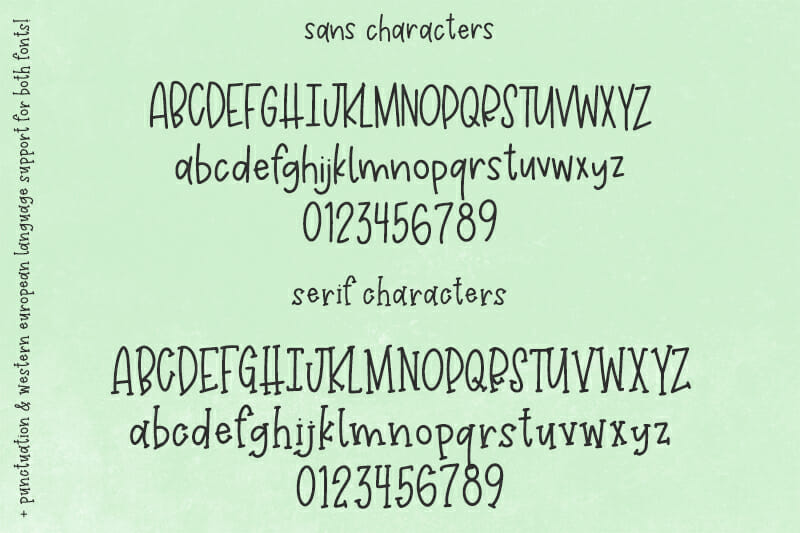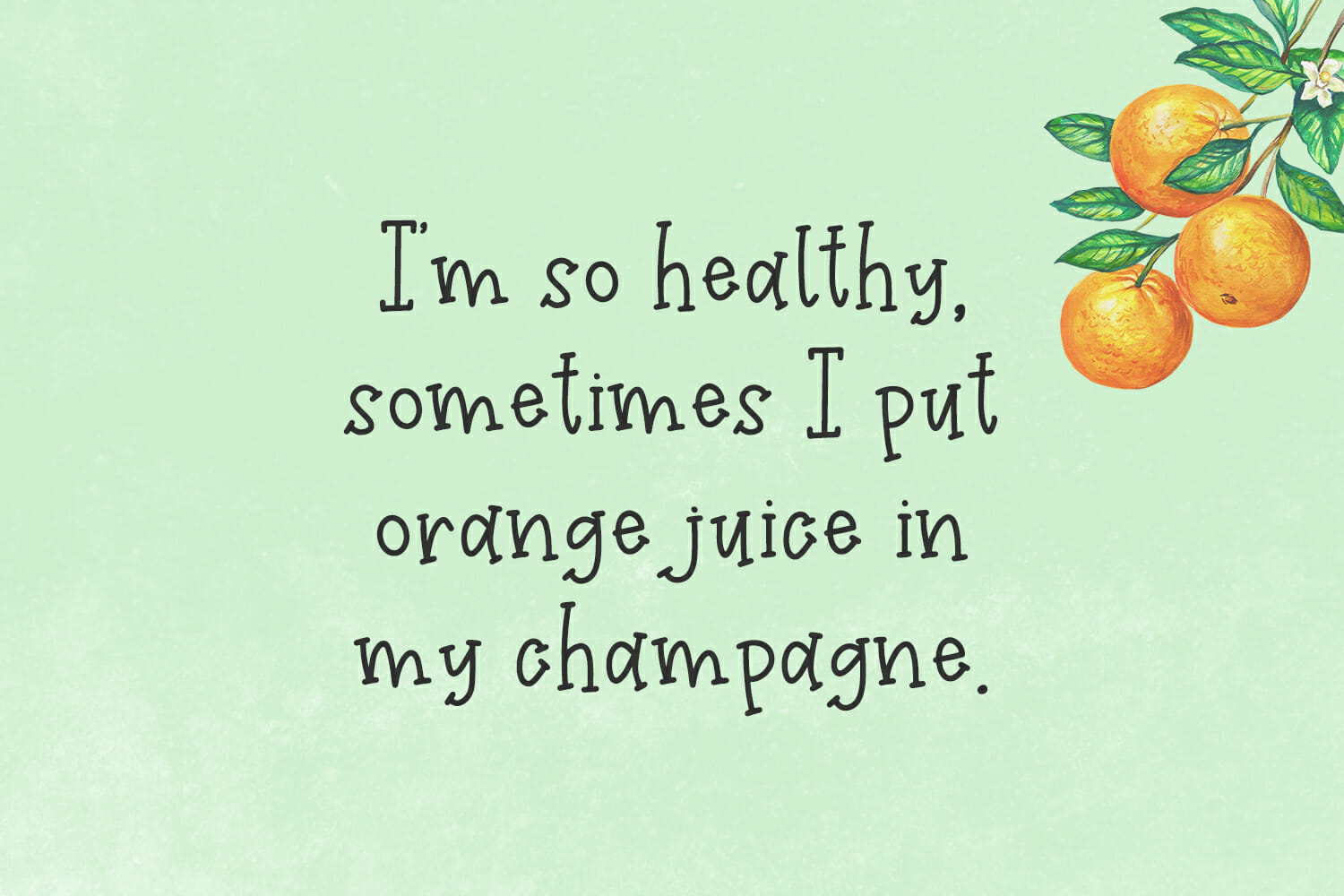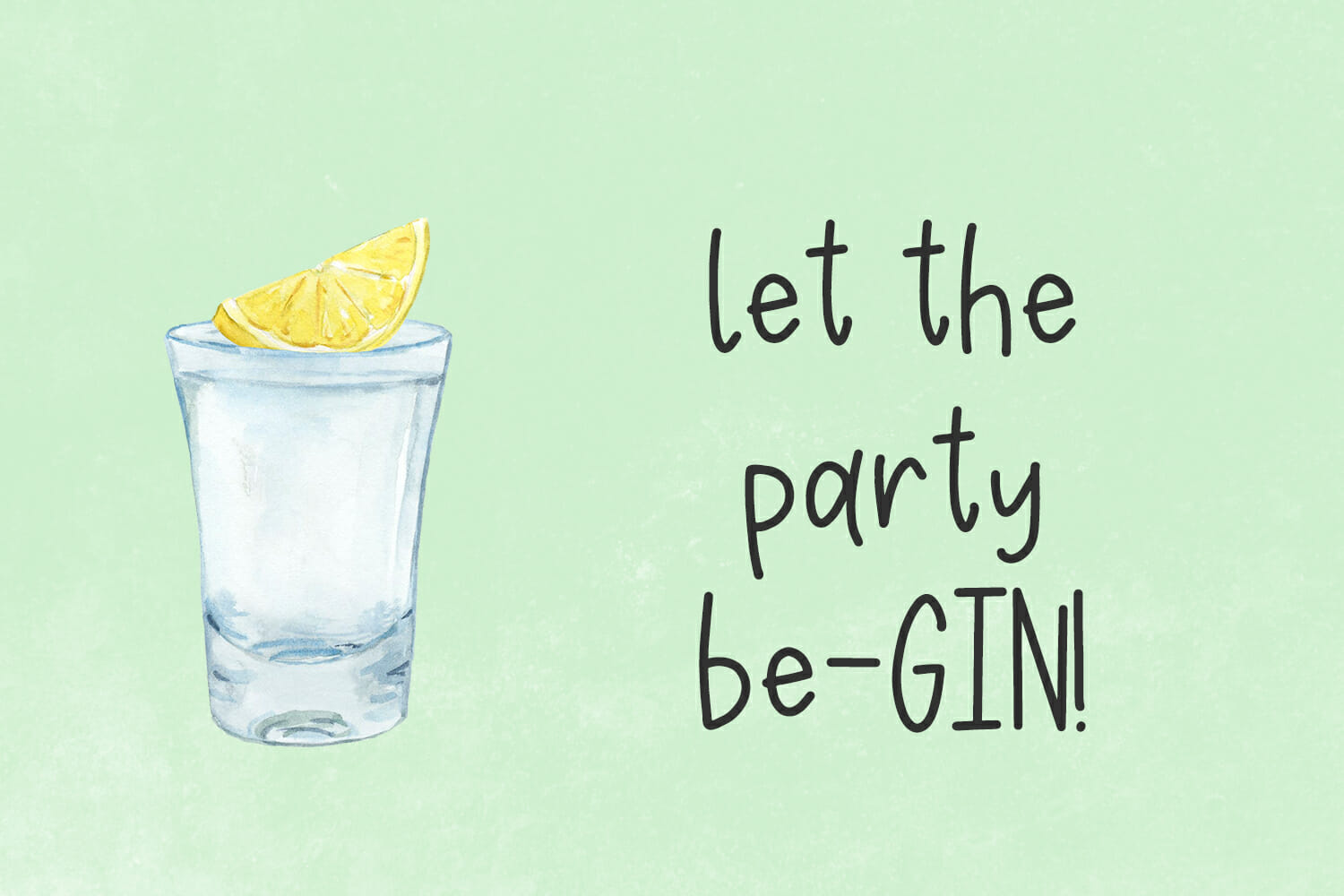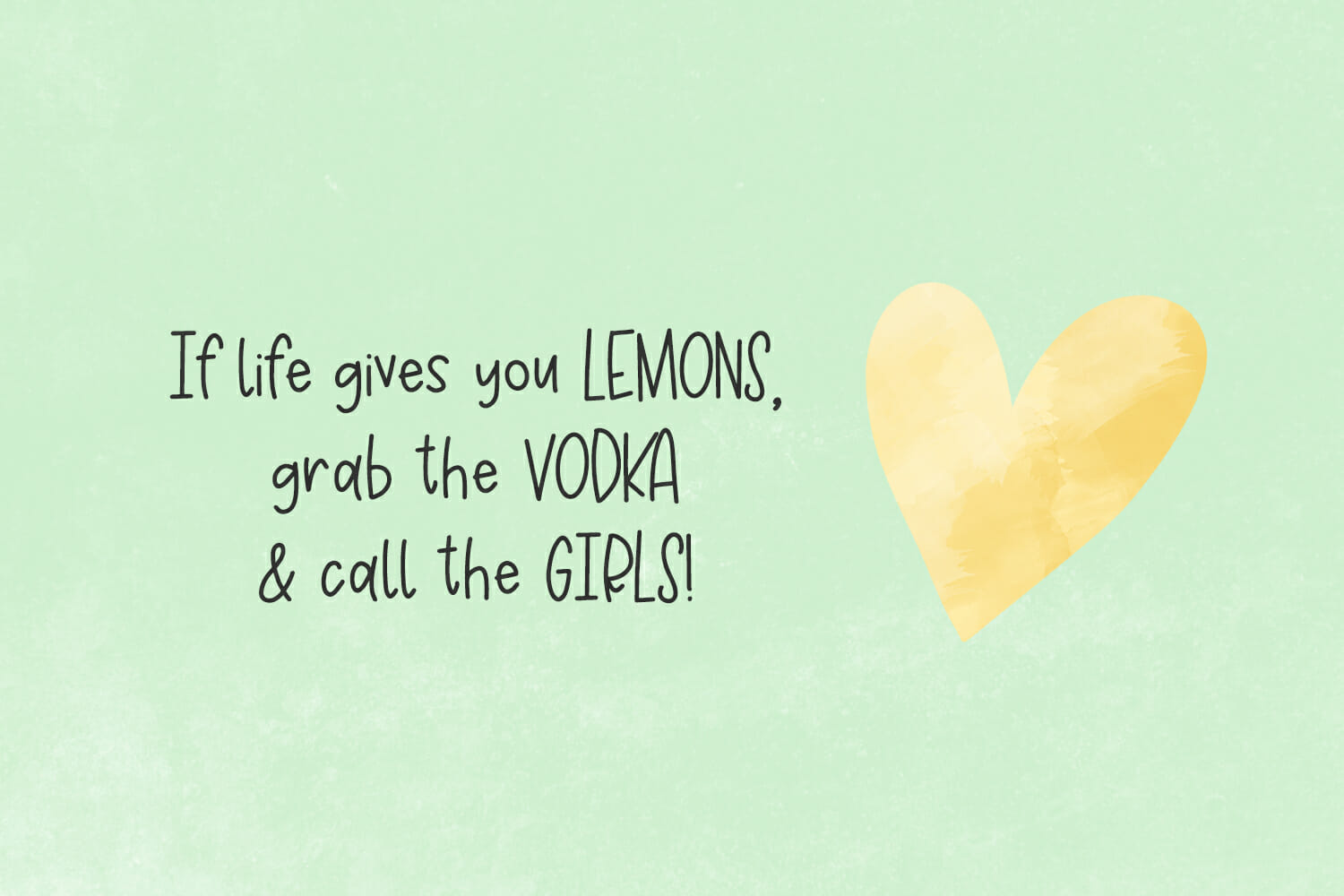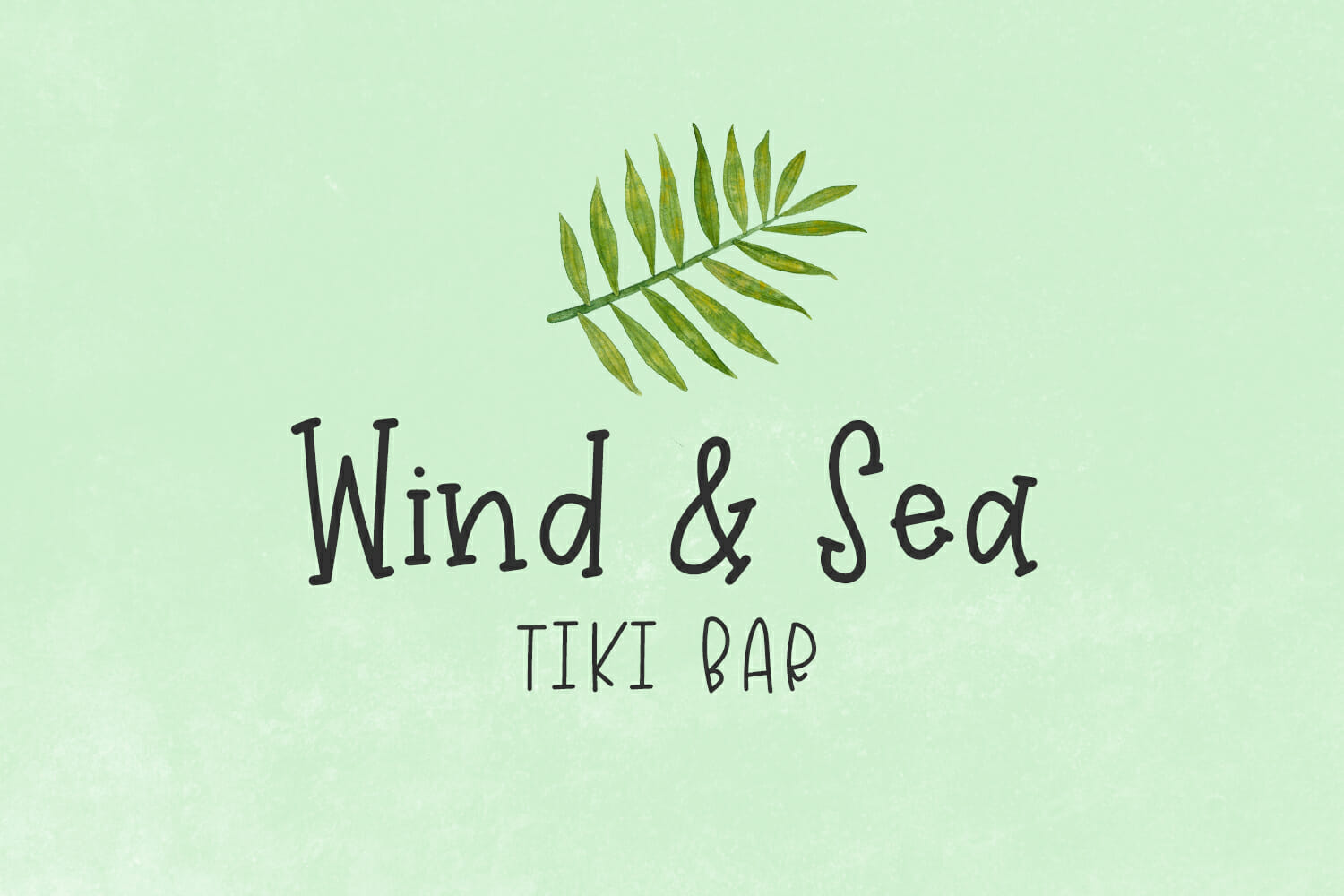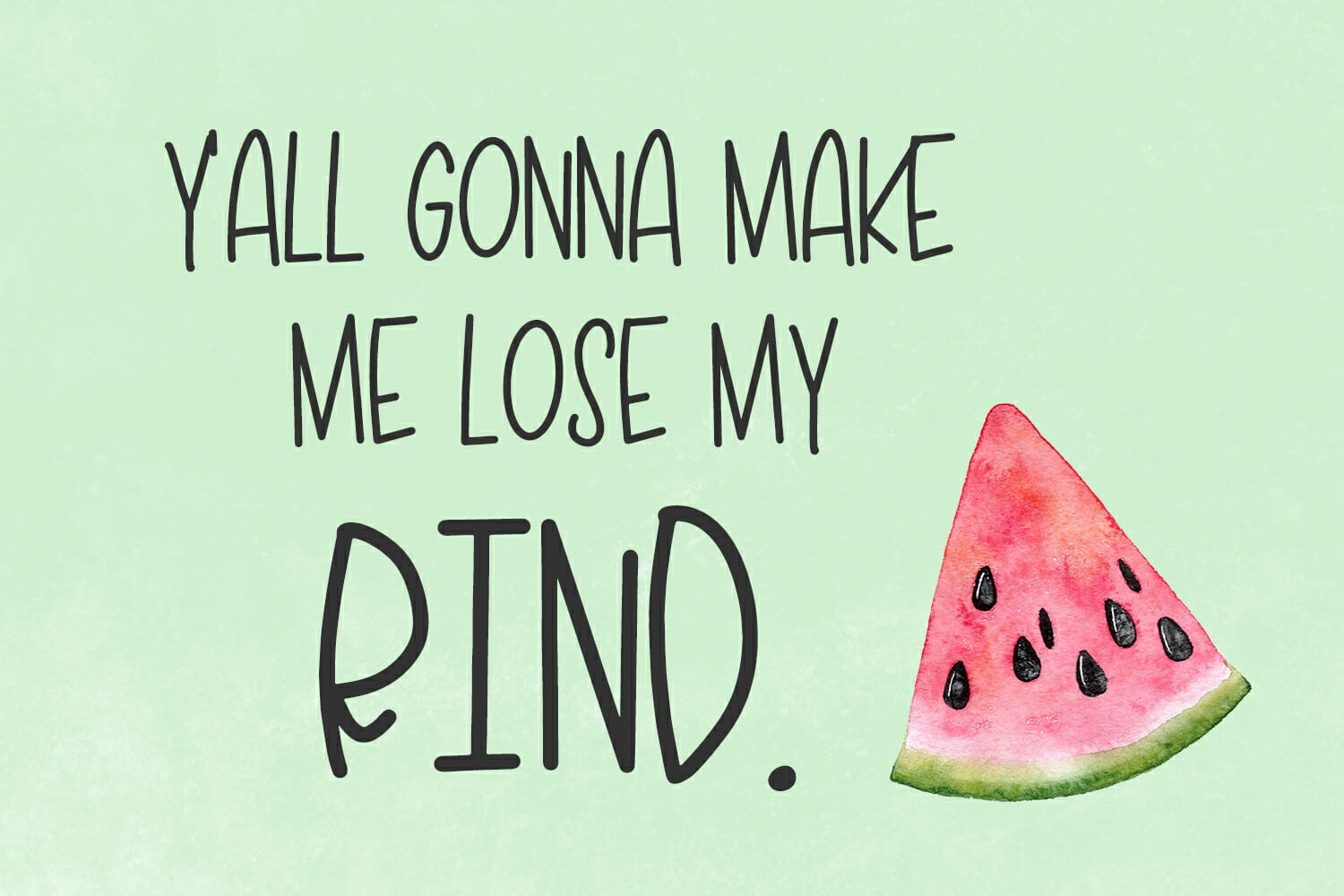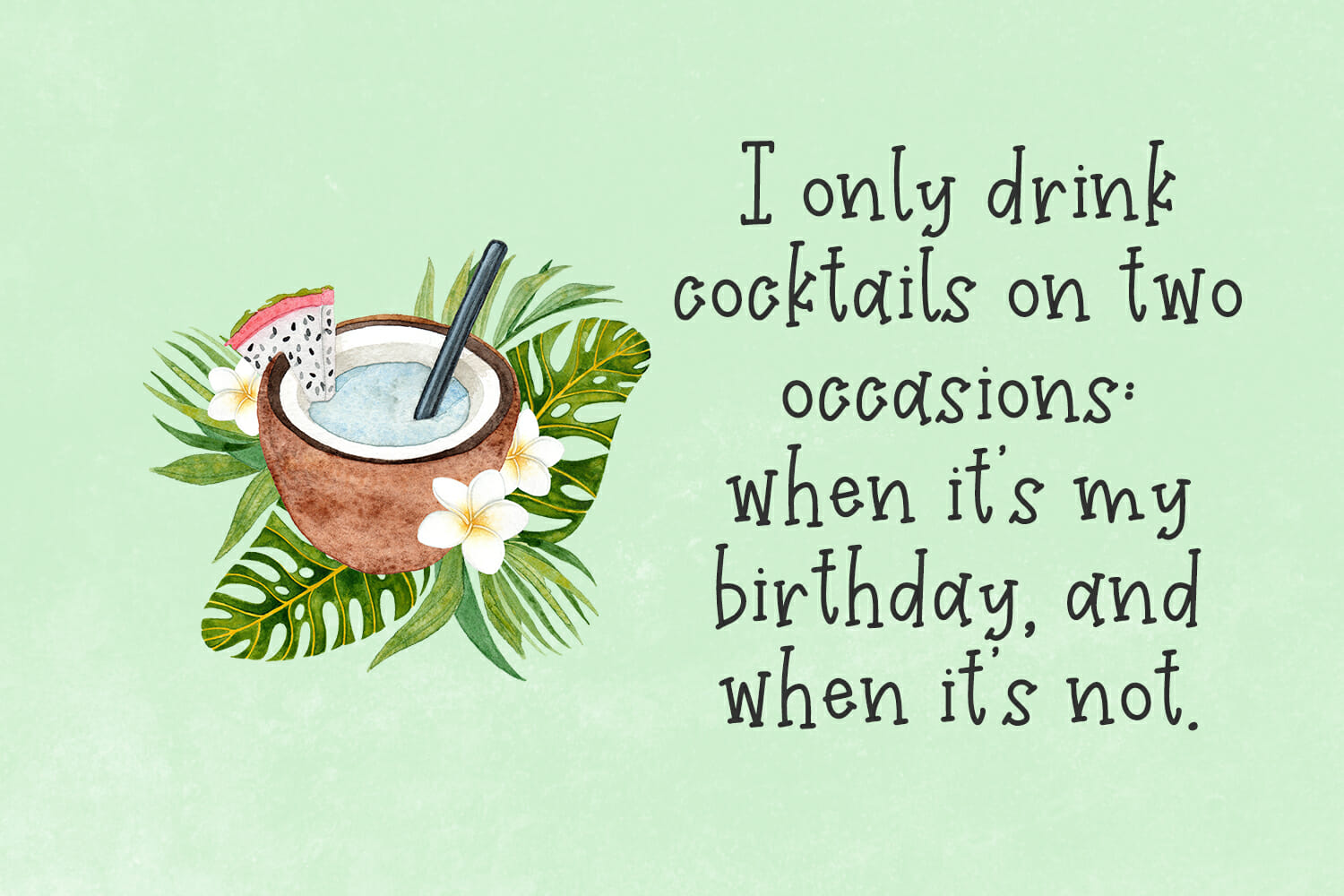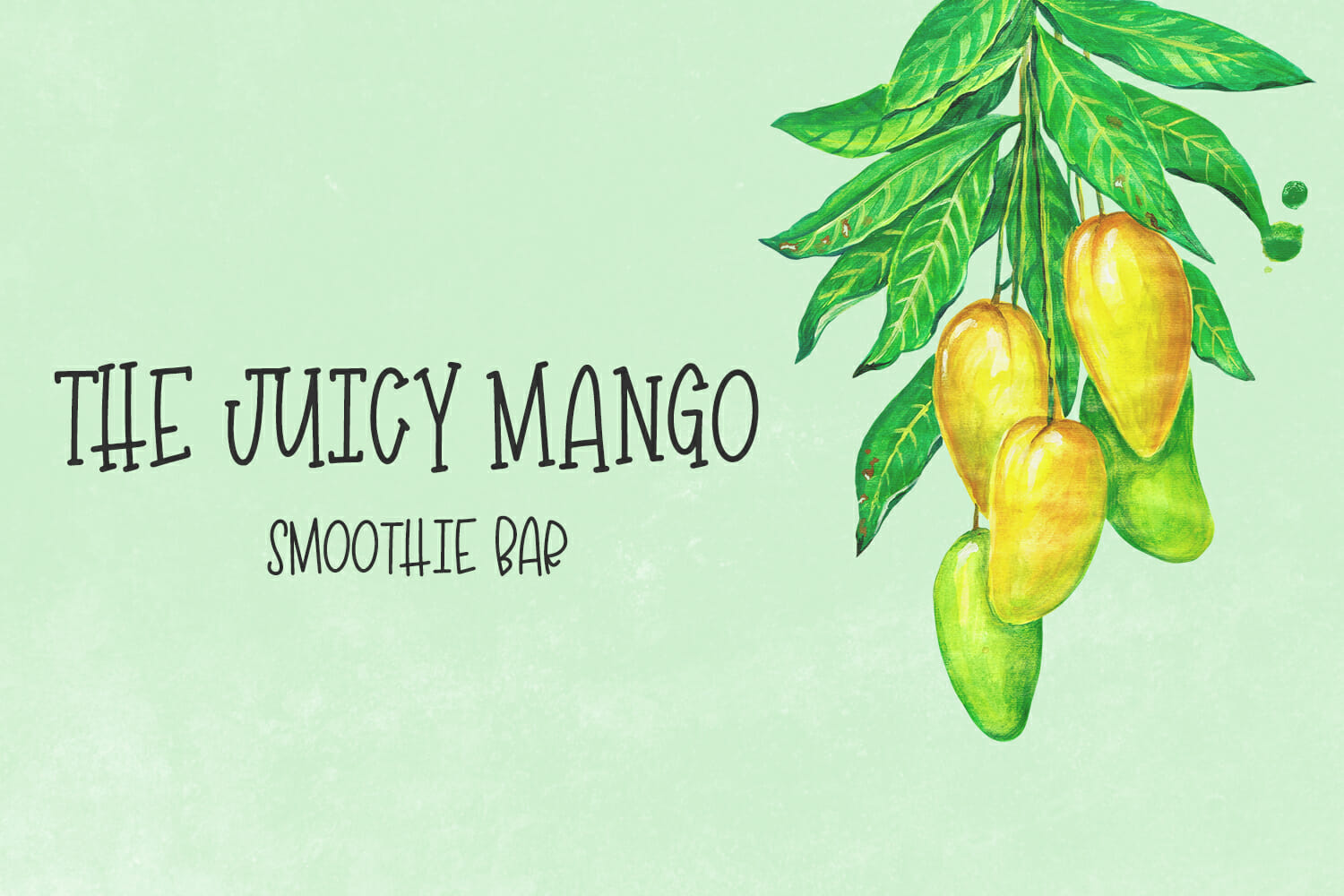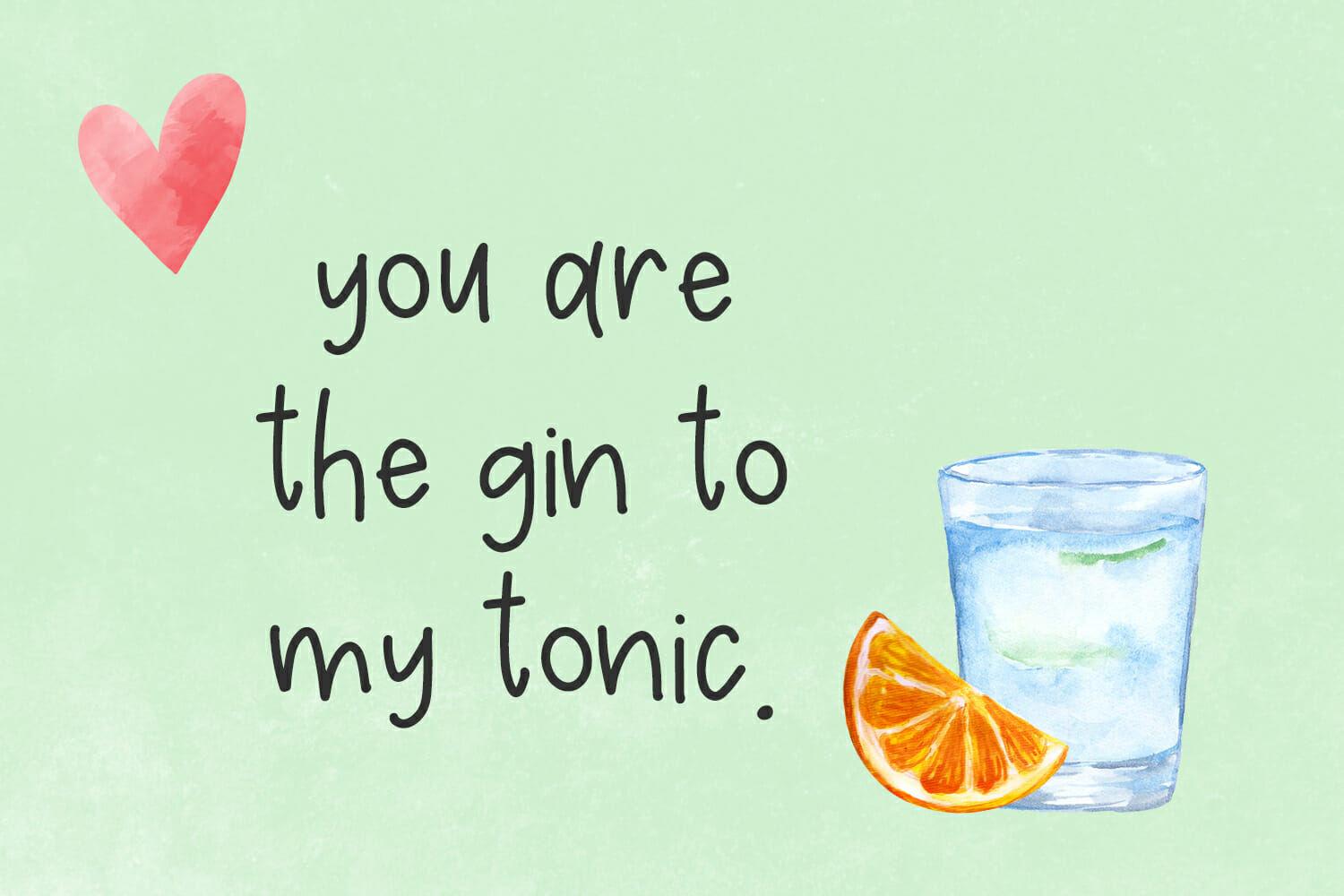
Gin & Tonic Duo
Introducing the Gin & Tonic Duo! G&T features a sans & a serif version, perfect for mixing and matching in your designs!
The Gin & Tonic Duo is best for:
– logos + branding
– crafting projects on your Cricut or Silhouette machine – G&T features a smooth edge for cutting & is super legible
– header elements that need handwritten touch
– quote graphics for social media like Facebook or Instagram
– full upper + lowercase characters for both sans & serif versions